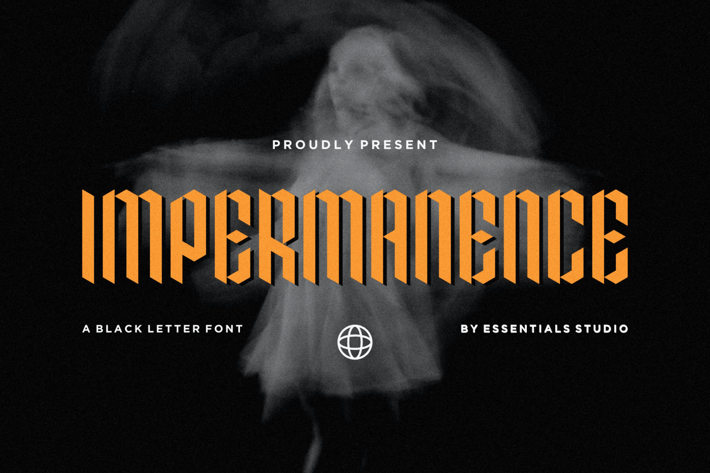
ES Impermanence - Blackletter Font
Introduced by Essentials Studio
Proudly Present, Impermanence
Impermanence is a bold and unique looking blackletter font. Whatever the topic, this font will be a wonderful asset to your font library, as it has the potential to enhance any creation.